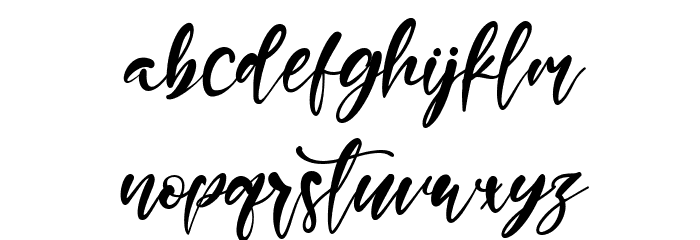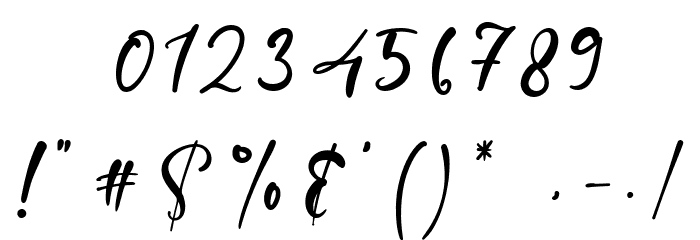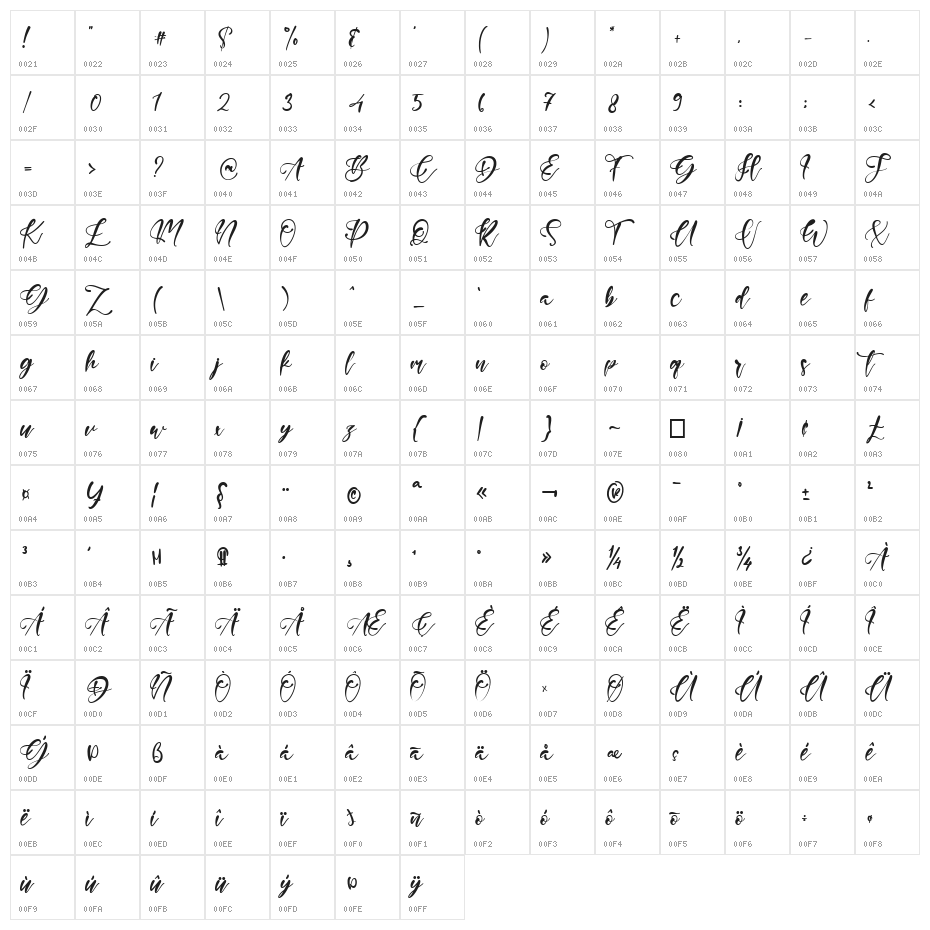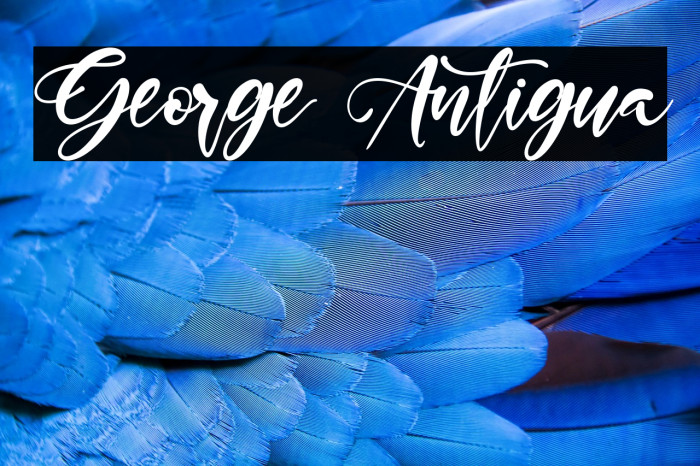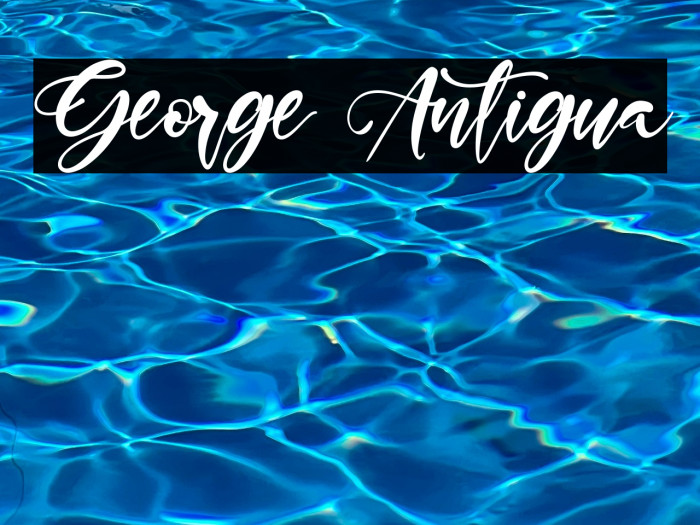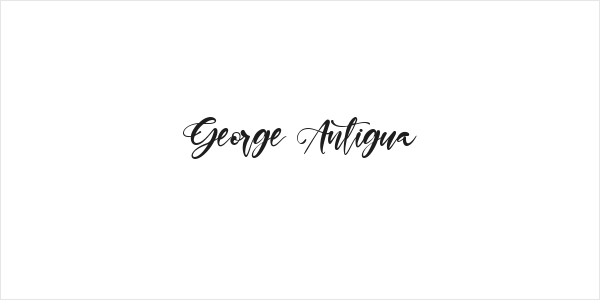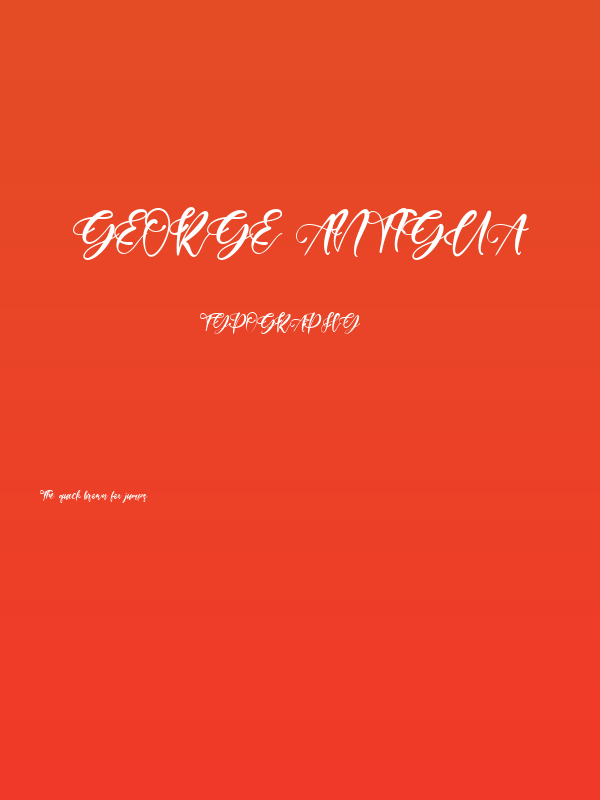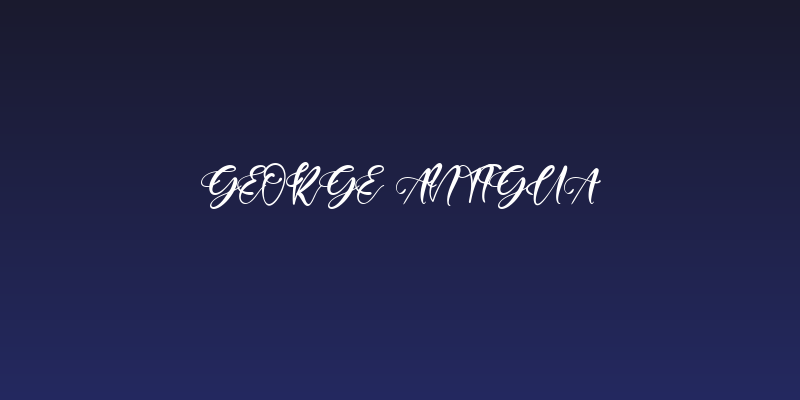
George Antigua Font
This font exudes a lively and elegant script style, characterized by its flowing, cursive letterforms that convey a sense of sophistication and grace. The uppercase letters are intricately designed with sweeping curves and loops, while the lowercase letters maintain a consistent fluidity, enhancing readability. The numerals are crafted with the same attention to detail, ensuring they blend seamlessly with the alphabet. Special characters are thoughtfully integrated, maintaining the overall aesthetic. This font is ideal for projects that require a touch of elegance and personality.
A lively and elegant script font with flowing, cursive letterforms.
- Font: George Antigua
- Proposed Projects: Wedding invitations, greeting cards, branding, and logo design.
- Category: Script
- Overall Style: Elegant
- Use Case: Logos, Invitations, Decorative text